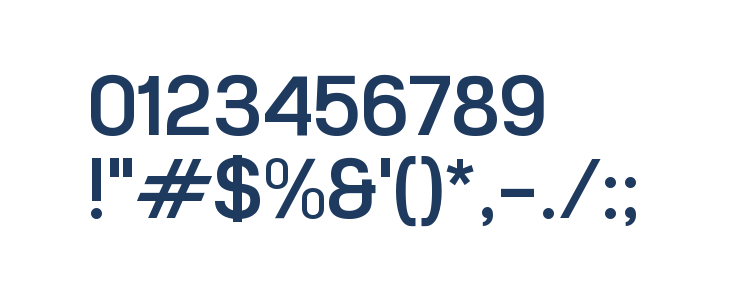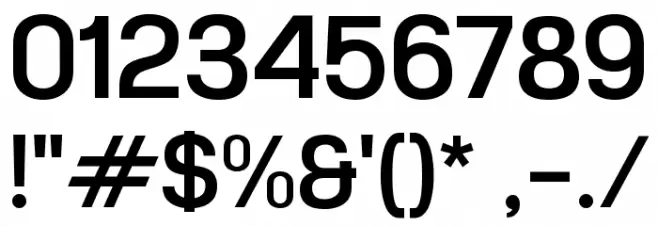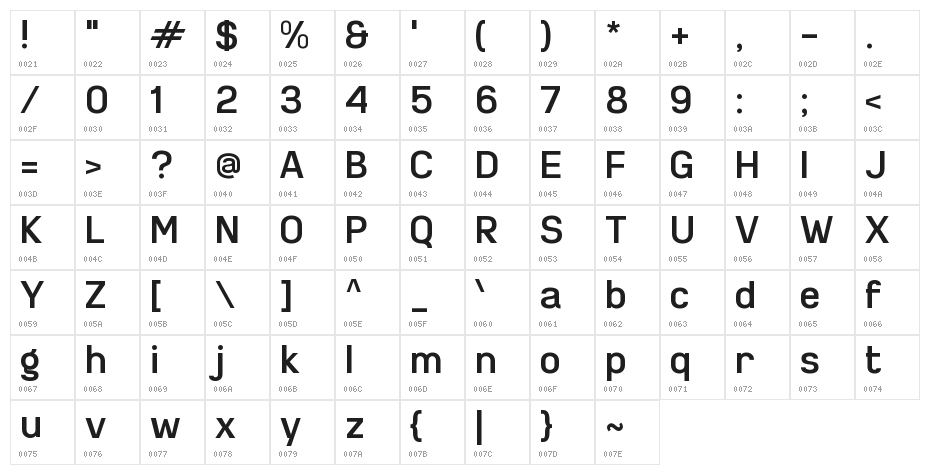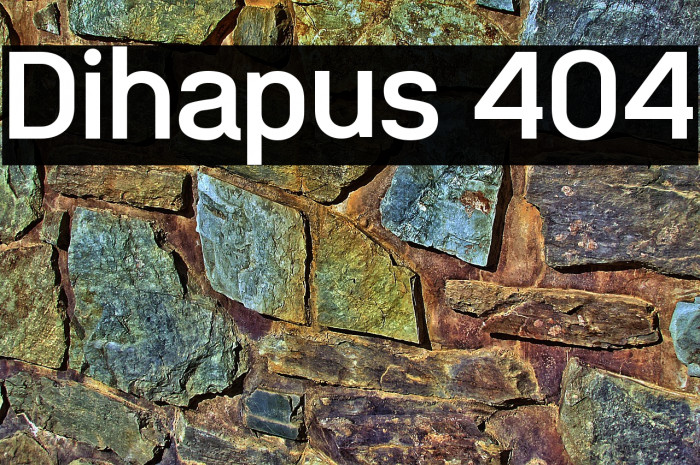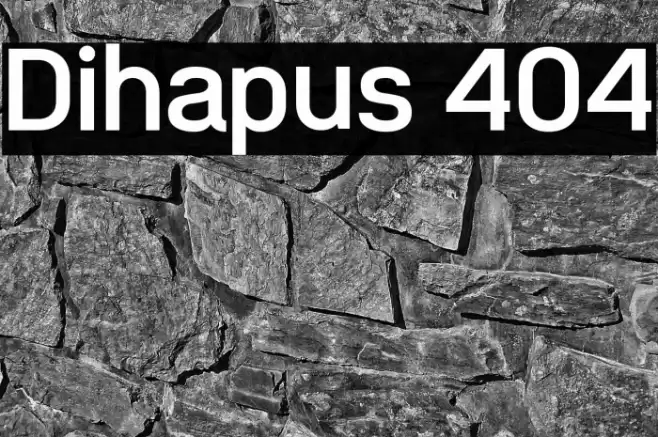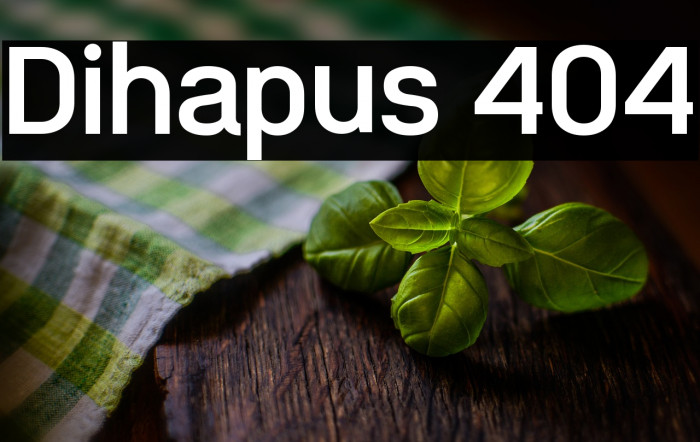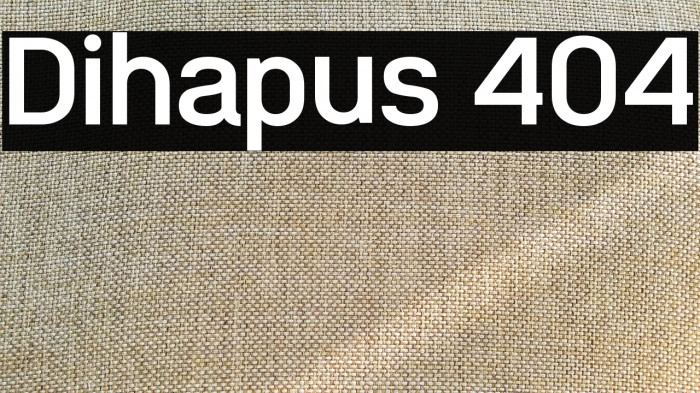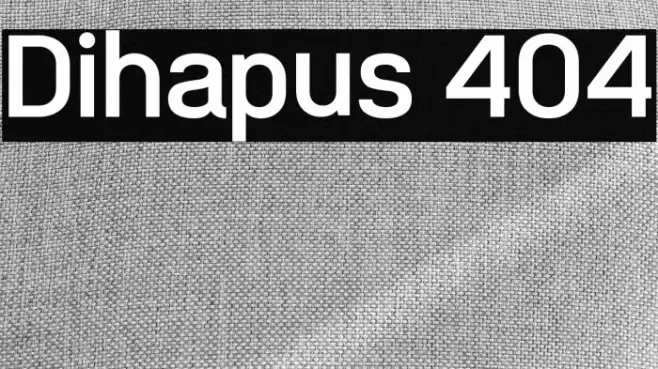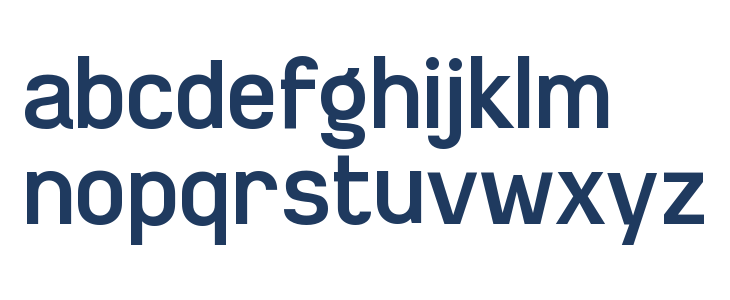
Dihapus 404 Font
Dihapus 404 Description
This font features a clean and modern sans-serif design, characterized by its uniform stroke width and geometric shapes. The uppercase letters are bold and assertive, while the lowercase letters maintain a consistent style that complements the uppercase. The numerals are clear and easy to read, making them suitable for various applications. Special characters are well-defined, enhancing the font's versatility. The overall appearance is sleek and professional, making it ideal for contemporary design projects.
DIHAPUS-404 UPPERCASE
DIHAPUS-404 LOWERCASE
DIHAPUS-404 OTHER CHARS